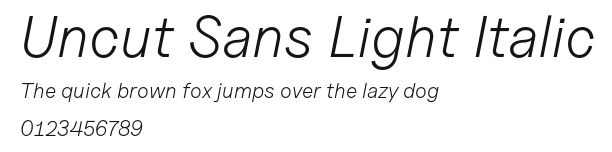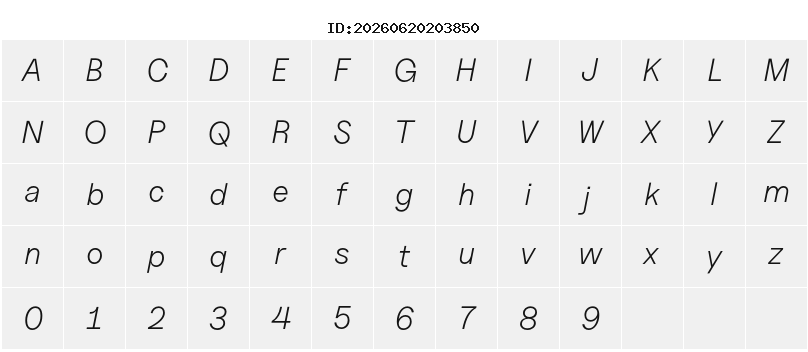
Uncut Sans Light Italic Preview
• Font Name: Uncut Sans Light Italic
• Full Font Name: Uncut Sans Light Italic
• Designer: Kasper Nordkvist
• Manufacturer: UNCUT.wtf
About Uncut Sans Light Italic.otf
Uncut Sans Light Italic.otf is a modern, elegant sans-serif font designed for ultimate readability and visual harmony. Perfect for branding, headlines, web design, and print materials.